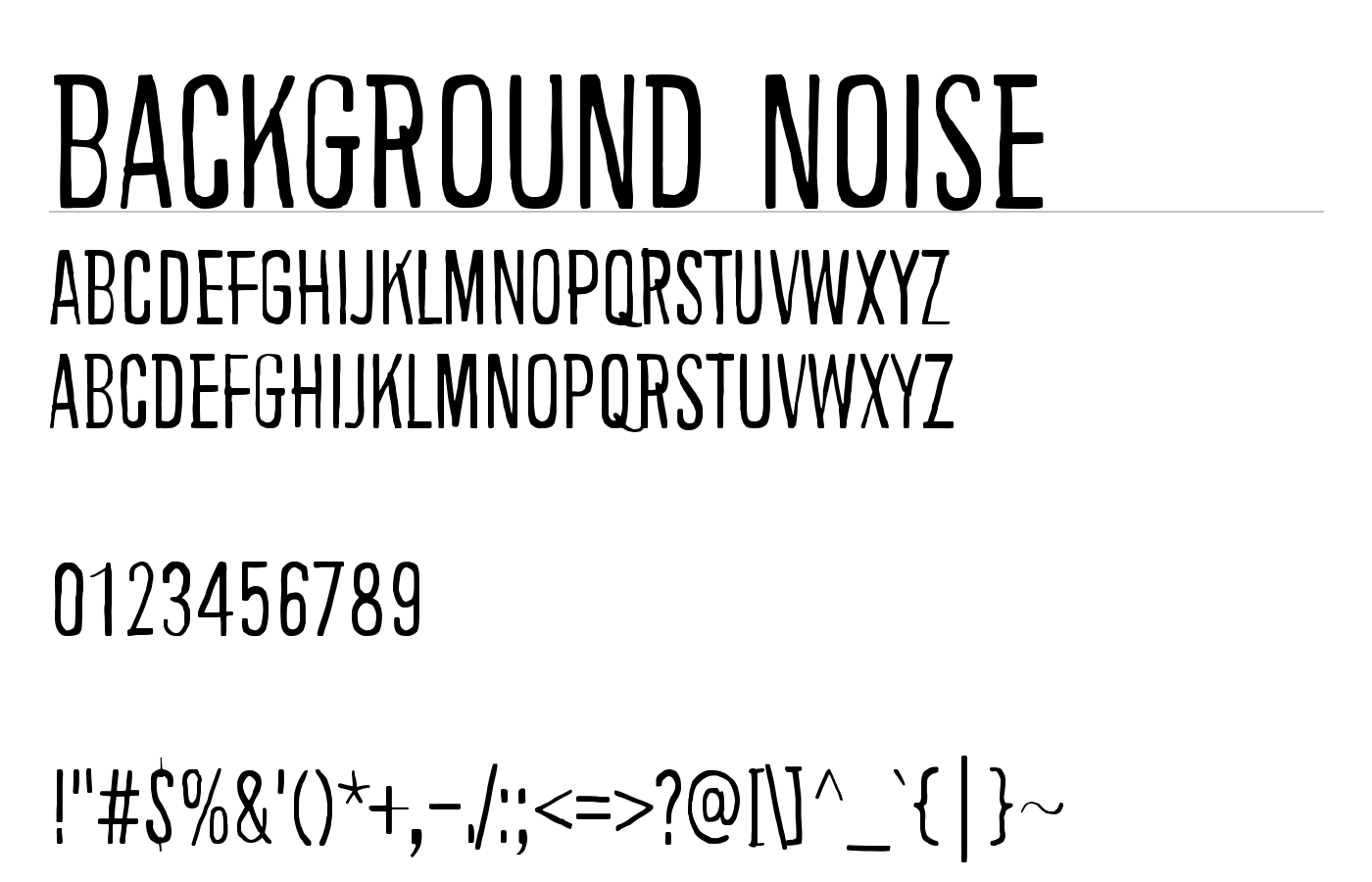
Background Noise is a narrow, tall sans serif font with an uneven, hand-drawn feel that brings a quirky, vintage vibe to text. Its slightly irregular letterforms and varied stroke widths create a casual yet distinct personality, making it perfect for creative projects, headlines, and branding that want to convey originality and a playful, retro charm. This font works well where a unique, expressive look is desired without losing readability.
Background noise Font
About Background noise Font
| Font family | Background noise Font |